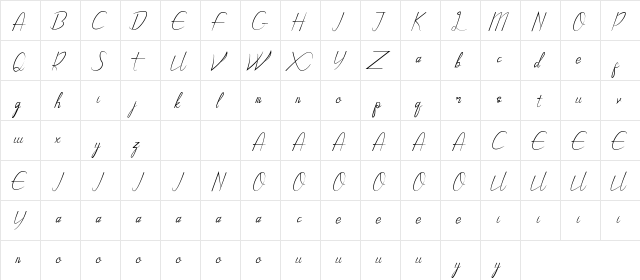
Boyfie Demo Regular
Design Context for Boyfie Demo Typeface
Boyfie Demo is a composed and adaptable typeface that performs quietly and consistently across a wide range of design contexts.